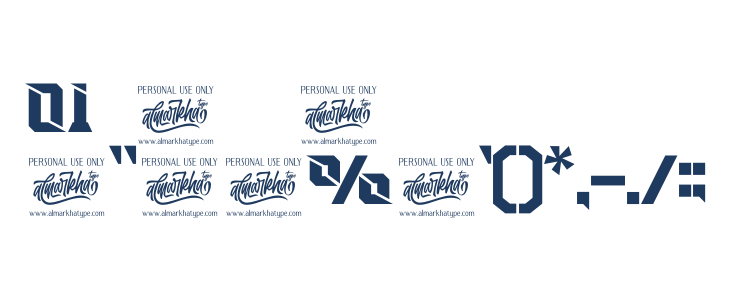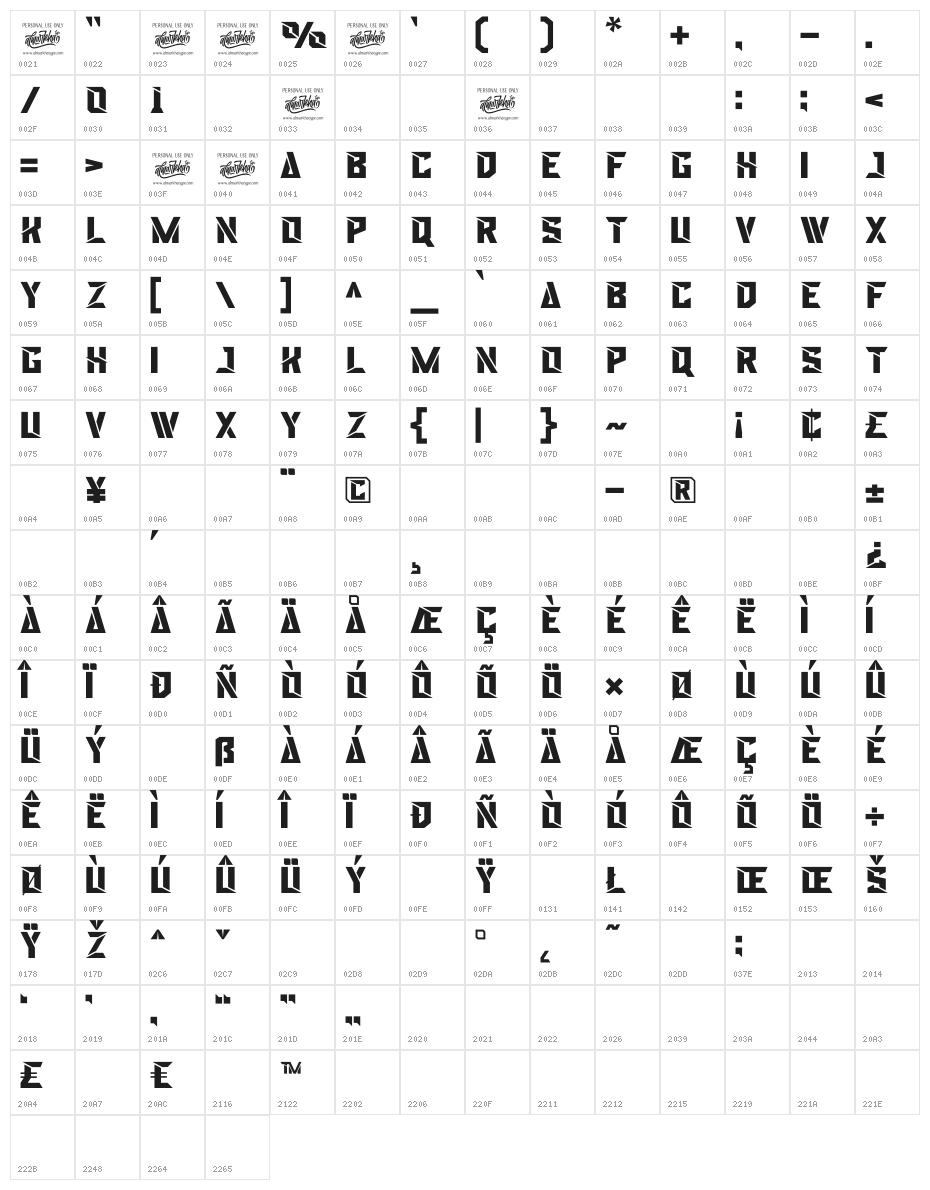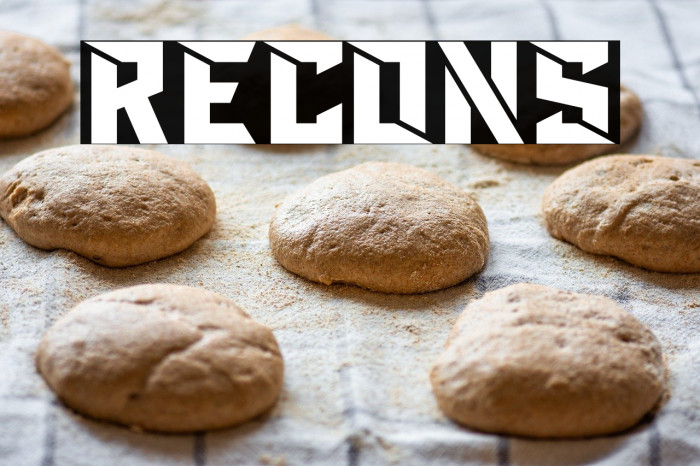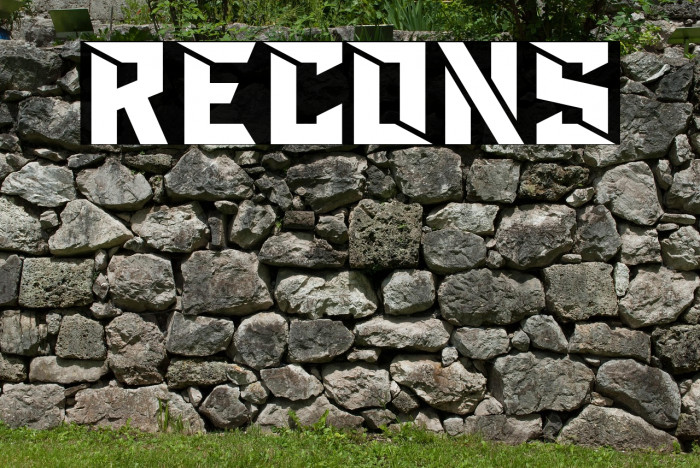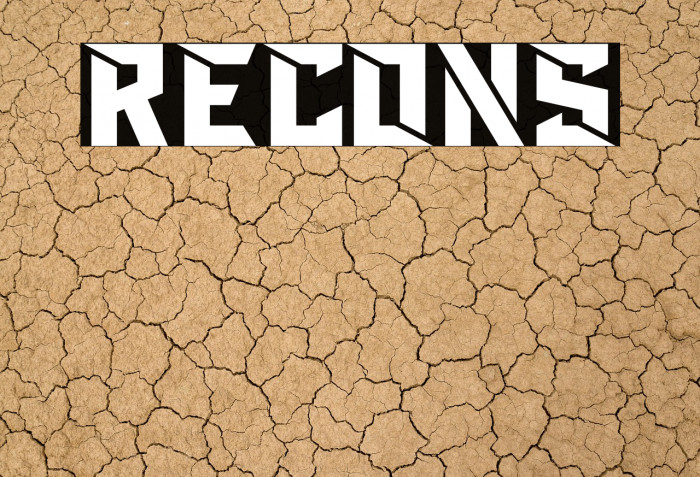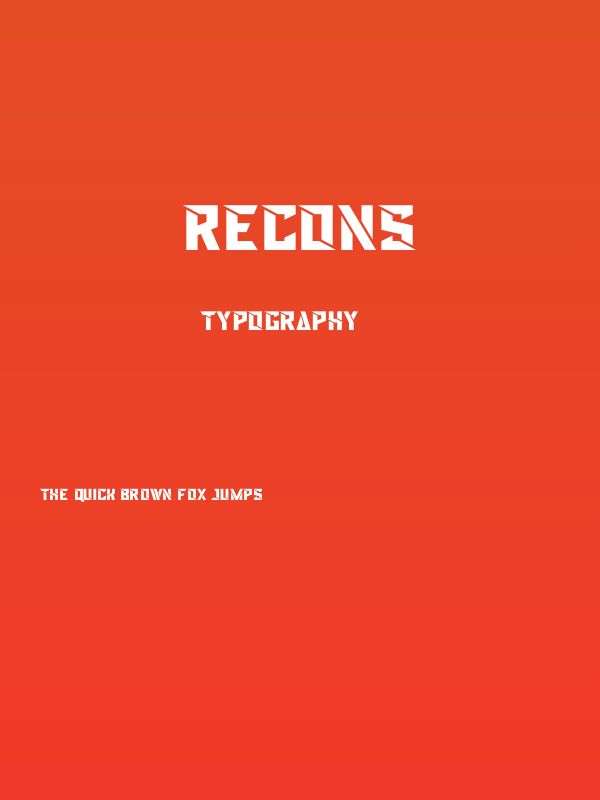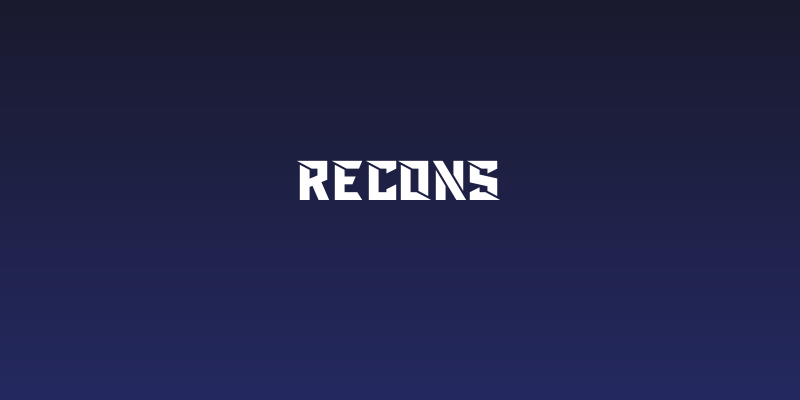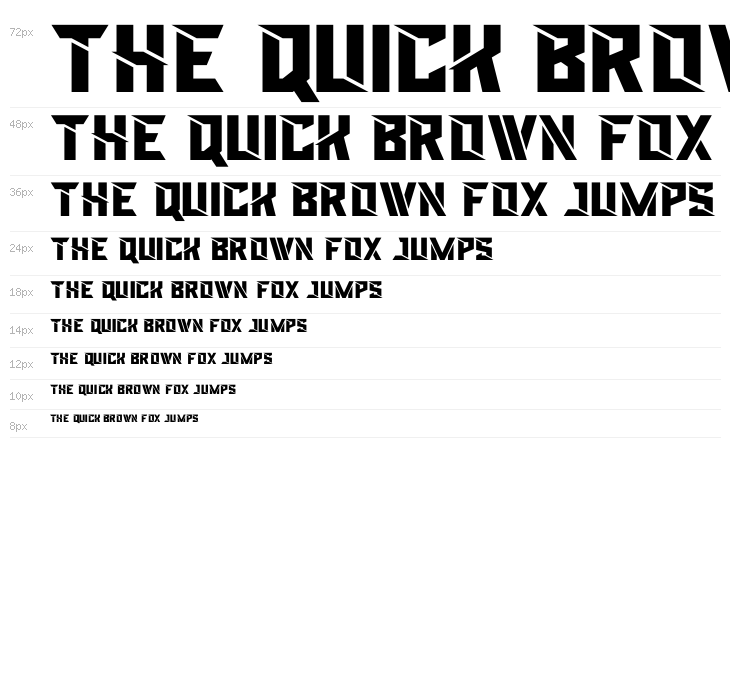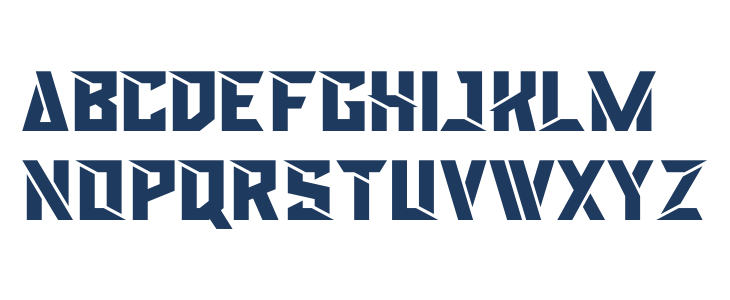
Recons Font
Recons Description
This font features a bold, angular design with sharp edges and geometric shapes, creating a striking and modern appearance. The uppercase letters are particularly distinctive, with each character incorporating unique cuts and angles that give the font a futuristic and dynamic feel. The overall style is highly decorative, making it ideal for attention-grabbing headlines or logos. The font's strong visual impact is enhanced by its high contrast in stroke thickness, which adds to its boldness. The character spacing is tight, contributing to a compact and cohesive look. This font is best suited for projects that require a strong visual statement, such as branding, posters, or digital media.
| Overall Style | Modern, Decorative |
| Proposed Projects | Ideal for branding, posters, digital media, and any project needing a strong visual impact. |